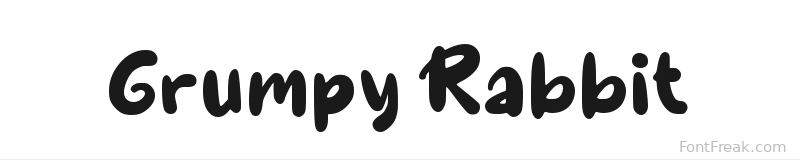
Grumpy Rabbit
About Grumpy Rabbit
Grumpy Rabbit is a delightful display font designed by Wahyu Eka Prasetya, categorized under decorative typefaces. This font features a playful and whimsical style that captures attention with its unique character. The strokes are thick and rounded, giving it a friendly and approachable feel, while the uneven baseline adds a touch of charm and personality. The overall look is informal yet eye-catching, making it perfect for a variety of creative projects.
The Grumpy Rabbit font is an exceptional choice for various uses. It shines in children’s book covers, where its playful nature can engage young readers. Additionally, it is ideal for birthday party invitations, adding a fun and lively element to the design. Restaurant menus, especially in casual dining establishments, can benefit from its inviting aesthetic, making the offerings feel more approachable. Furthermore, it works well for social media graphics, allowing content creators to convey a sense of fun and creativity in their posts.
What truly sets the Grumpy Rabbit font apart is its ability to evoke a sense of joy and playfulness. It stands out not only for its visual appeal but also for the emotional connection it fosters with viewers. By choosing Grumpy Rabbit font free download, you're not just selecting a typeface; you're opting for a design element that will resonate and engage your audience effectively.